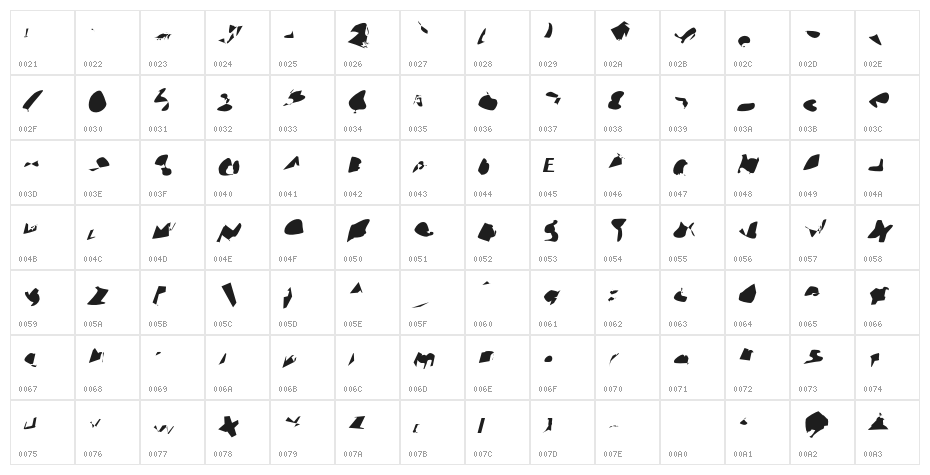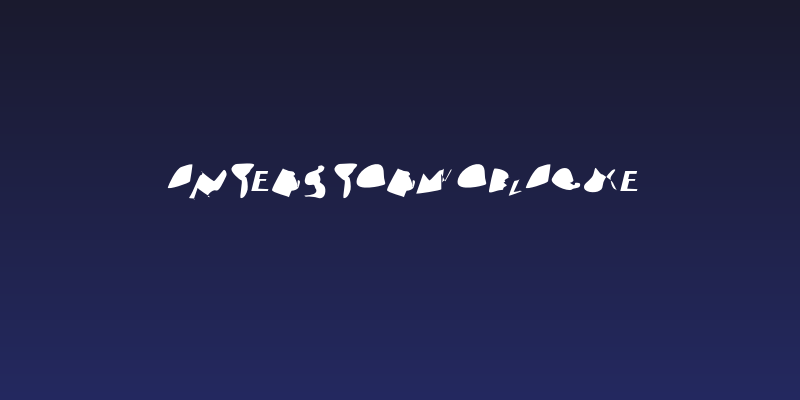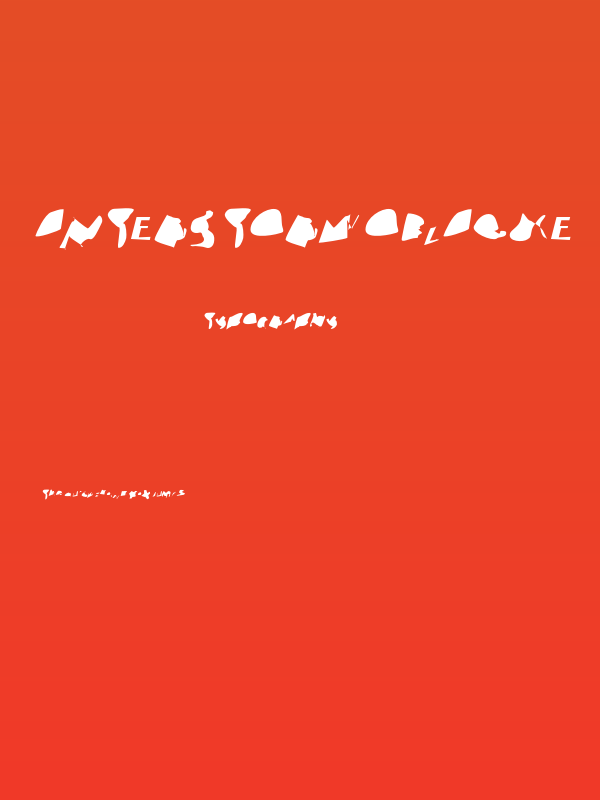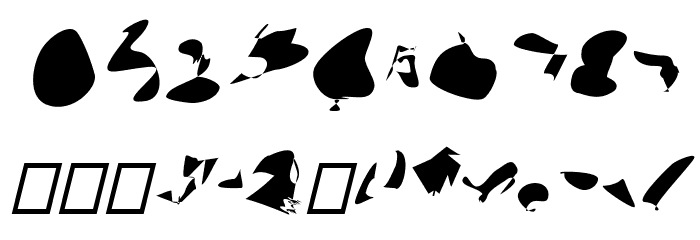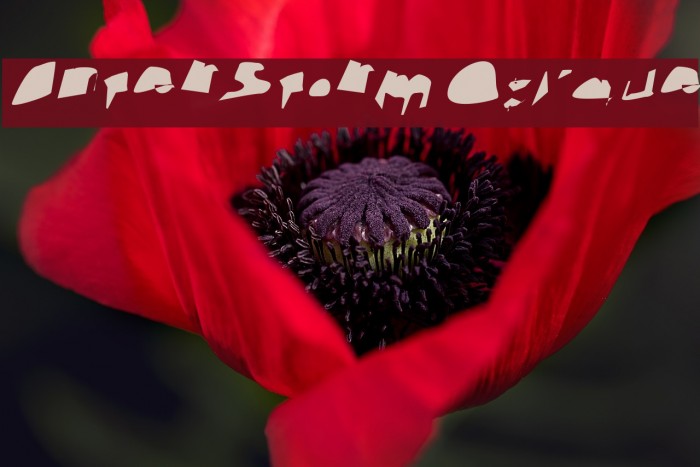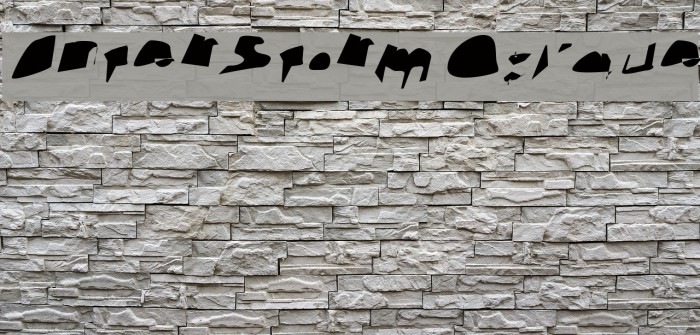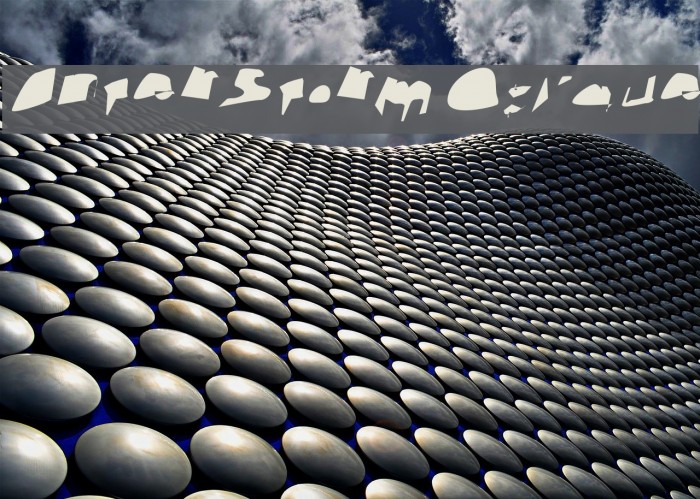
Interstorm Oblique Font
Interstorm Oblique Description
This font features a highly abstract and fragmented design, characterized by its bold, jagged edges and irregular shapes. The letters appear as if they have been shattered or distorted, creating a dynamic and chaotic visual effect. The uppercase and lowercase letters maintain this fragmented style, making it a unique choice for artistic and unconventional projects. The numbers and special characters follow the same design principle, ensuring consistency across the entire character set. This font is not suitable for body text due to its complex and decorative nature, but it can make a striking impact in headlines or graphic design projects that require a bold statement.
| Overall Style | Modern, Abstract |
| Use Case | Headlines, Graphic design |
| Proposed Projects | Ideal for artistic projects, album covers, posters, and any design requiring a bold, unconventional look. |